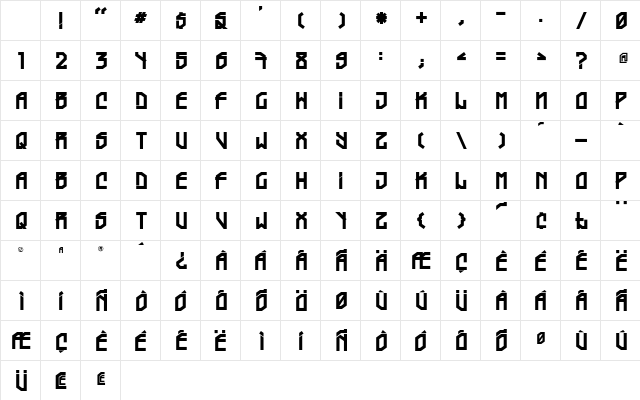
Complete Typograff glyph index. Displaying only characters natively supported by Typograff font.
Typograff is a composed and adaptable typeface that performs quietly and consistently across a wide range of design contexts.